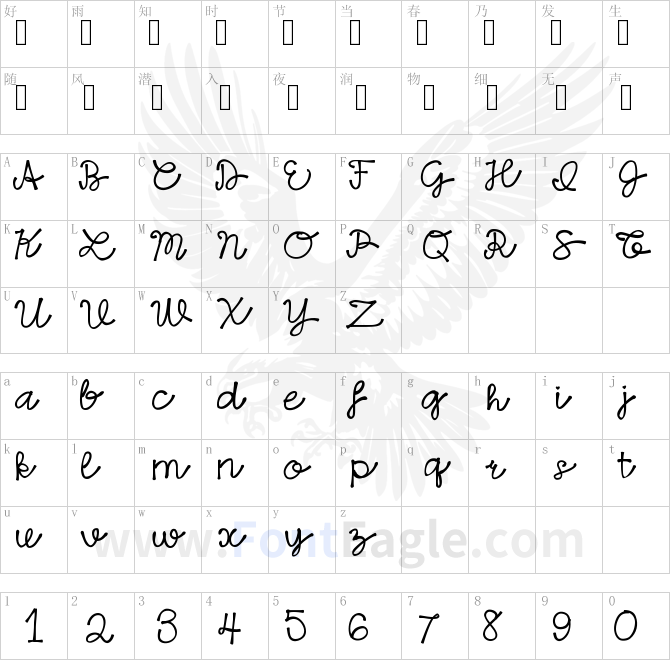
- Font name:HelloSansaNorth
HelloSansaNorth is a great font, widely used in graphic design, single-page menu design, poster design and other fields, and is deeply loved by designers.HelloSansaNorth download.